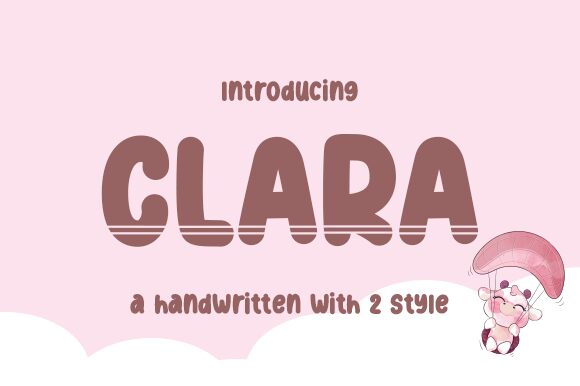
Clara Strip, designed by Nirmala Creative, is a whimsical display font that adds a playful touch to any project. With its extra-bold weight and cartoon style, Clara Strip is perfect for creating eye-catching headlines, logos or posters that demand attention. Its unique design makes it suitable for children's books, comic books, or any project that requires a creative and fun touch. Bring your designs to life with Clara Strip and let your imagination run wild!